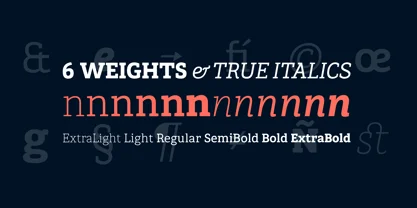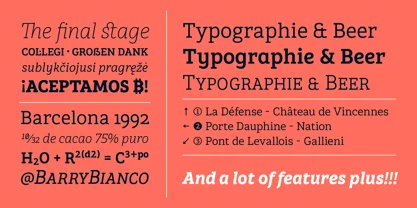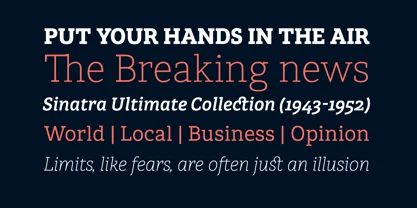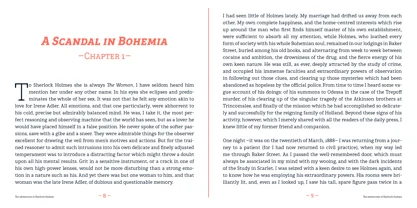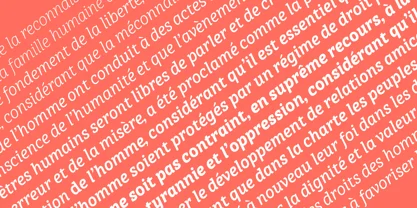
Brava Slab Font
A good typeface communicates tone before a single word is read. Brava Slab achieves this through a confident voice that adapts to diverse briefs. The typeface brings a versatile sensibility to a broad range of creative disciplines, with versatility across print and screen contexts that holds up whether the work is print-first or screen-first.
In practice, Brava Slab proves particularly effective for product labels, logo design, editorial layouts, web design, signage systems. Designers reaching for it find that the type decisions feel resolved rather than laboured — a useful quality when client timelines are tight.
The range of applications extends to brand identity systems, poster creation, environmental graphics, packaging design. That breadth is deliberate: the proportions and spacing were stress-tested across a wide range of mock briefs before the typeface was finalised.
The proportions balance x-height, cap height, and ascender length to produce a face that reads confidently at body copy sizes without losing presence at display scale. Sidebearings were derived from visual rhythm testing rather than mathematical calculation alone.
UX designers establishing typographic systems for digital products find Brava Slab a reliable choice for projects that demand both personality and restraint. The design avoids the self-conscious quirkiness that dates quickly, settling instead for considered distinctiveness that holds up over time.